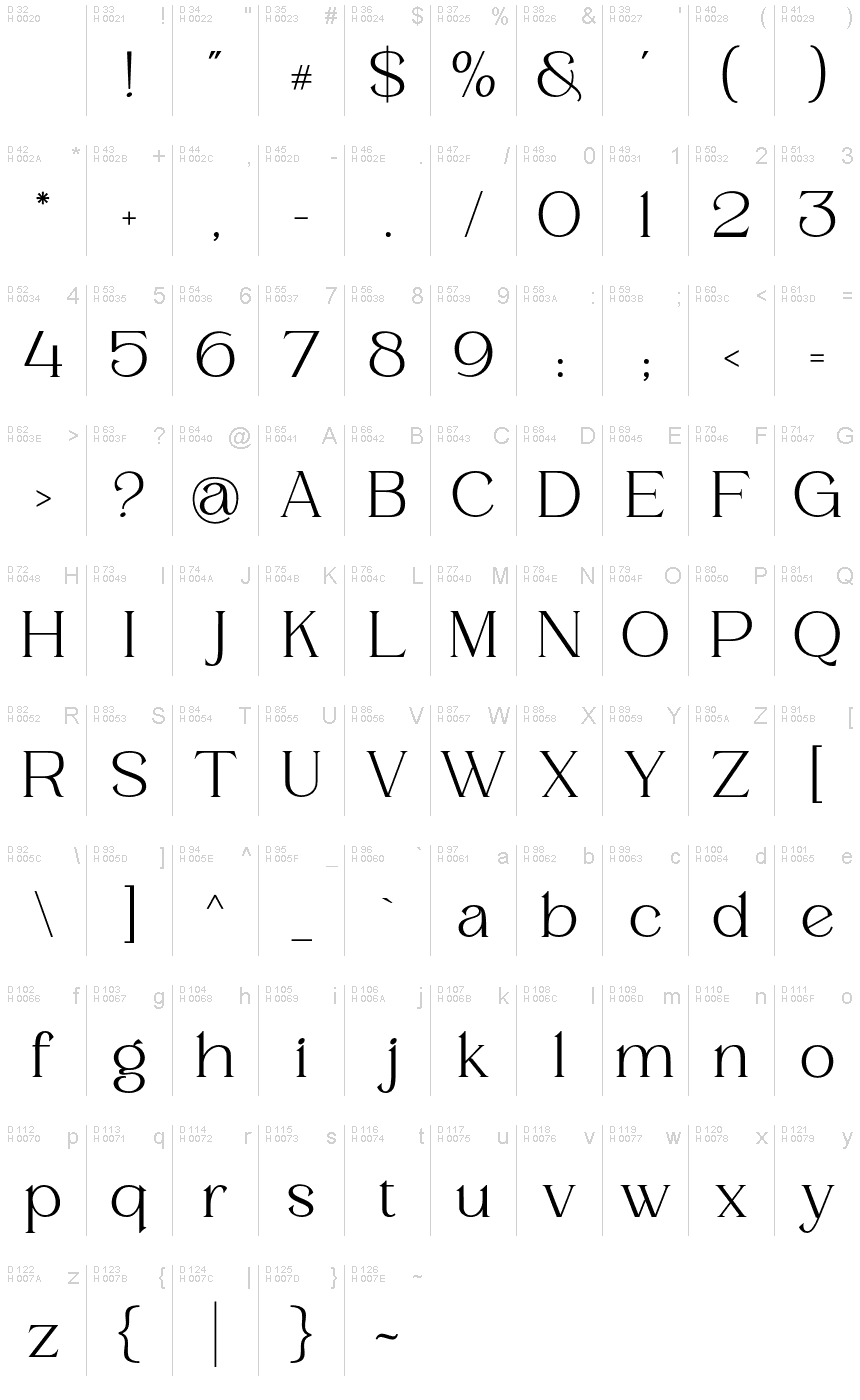
MergianRegular
Experience the elegance of Mergian, a modern ligature font crafted by the creative minds at Tebaltipis Studio. With its semi-light weight and sophisticated serif style, Mergian strikes an exquisite balance between classic charm and contemporary flair. Perfect for a wide array of creative projects, this font boasts versatility that can elevate branding efforts, transform logo designs, and add a touch of luxury to invitations and mastheads.
Mergian's unique character stems from its delicate ligatures that weave letters into seamless connections, creating an aura of professionalism and grace. Its potential to enhance visual storytelling makes it an indispensable asset for designers looking to leave a lasting impression through their work. Embrace the allure of Mergian in your next project and watch your designs come alive with its understated elegance.